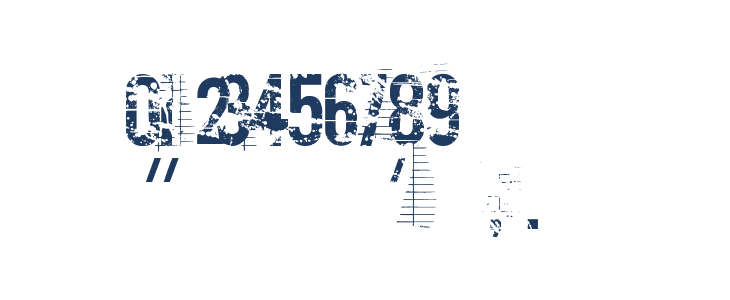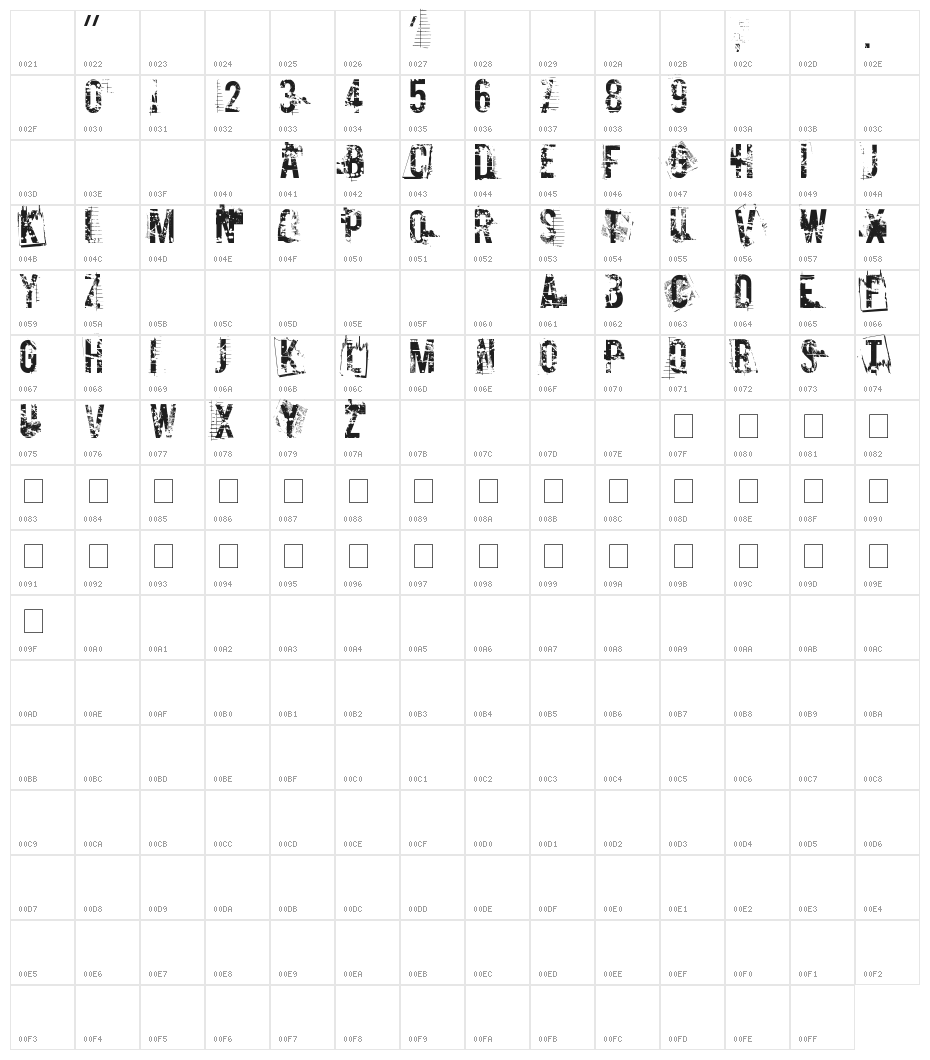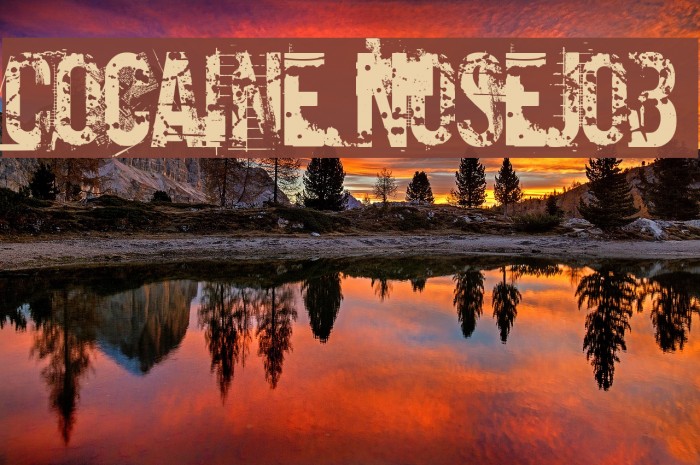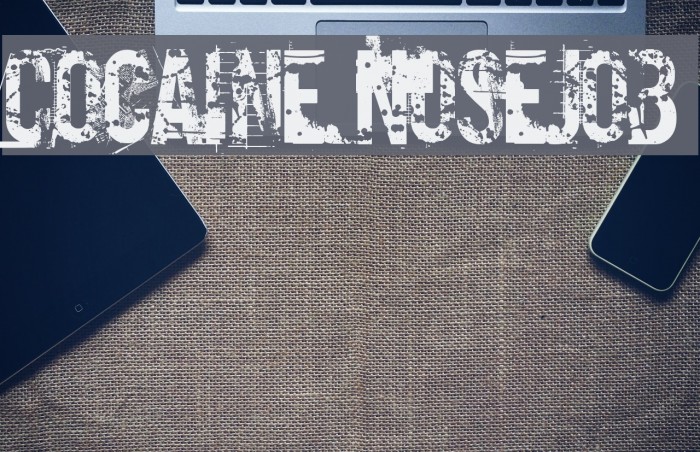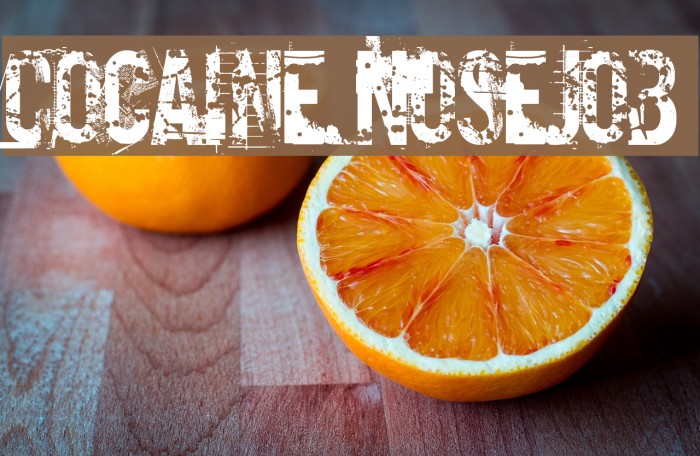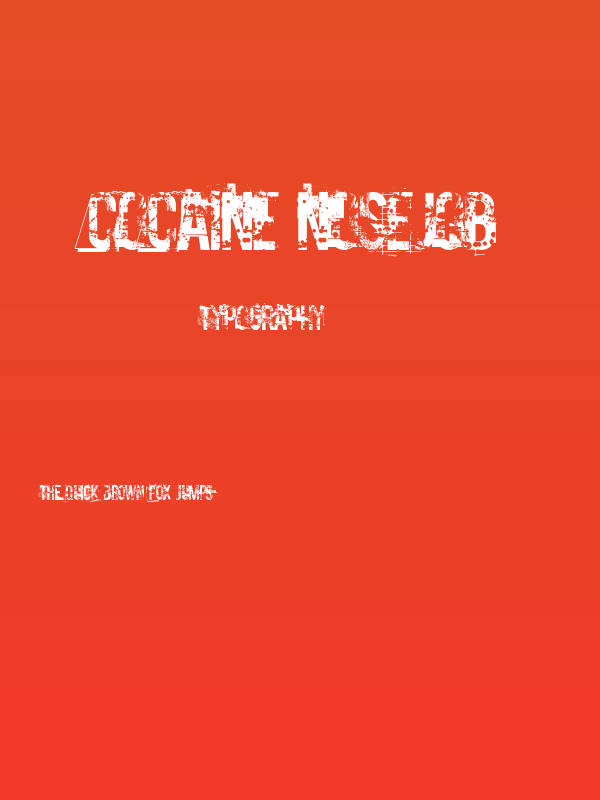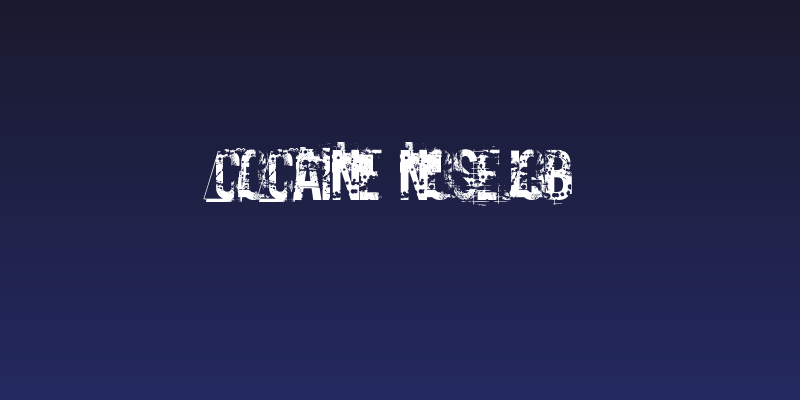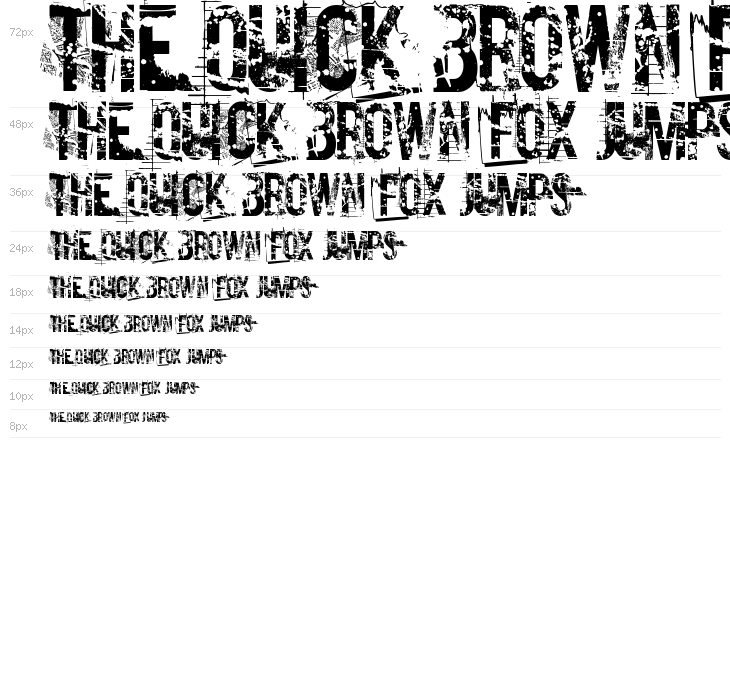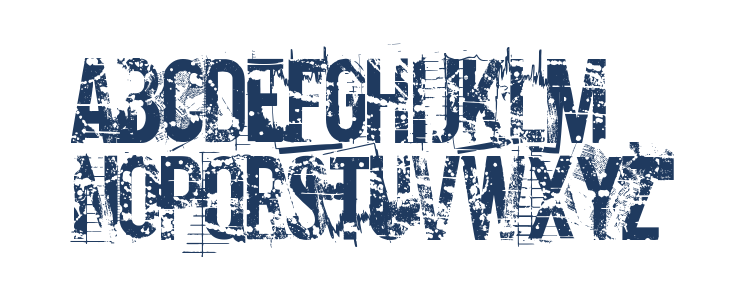
Cocaine Nosejob Font
Cocaine Nosejob Description
This font features a distressed and grungy aesthetic, characterized by its bold, uppercase letters that appear weathered and worn. The texture is reminiscent of peeling paint or eroded surfaces, giving it a raw and edgy feel. The characters are tightly spaced, enhancing the compact and impactful appearance. The font's unique style makes it stand out, with each letter exhibiting varying degrees of distress, adding to the overall chaotic and artistic vibe. The numbers and special characters follow the same design, maintaining consistency across the typeface.
| Overall Style | Grunge, Urban |
| Proposed Projects | Ideal for album covers, streetwear branding, poster designs, and urban-themed artwork. |